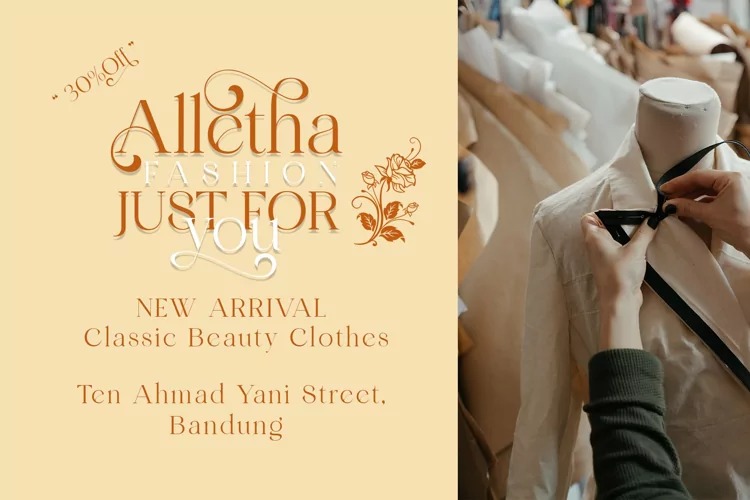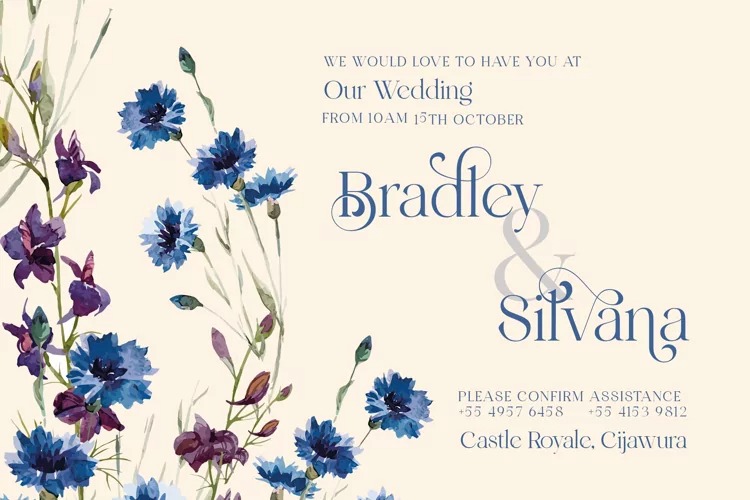
Wondershine Serif Font
This font is the latest modern serif font from handpik, made with strong and assertive characters, giving it a beautiful and easy-to-read impression. This font is suitable for invitation cards, decorations, clothing products, greeting cards and others. This font also has uppercase, lowercase, numeric, puntuation and multilingual. and there are several ligature and stylistic alternate.